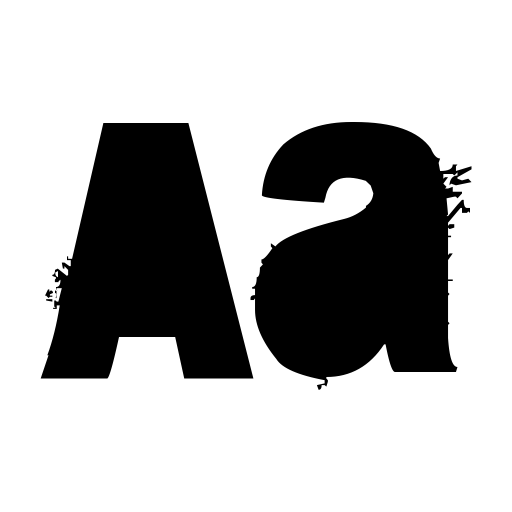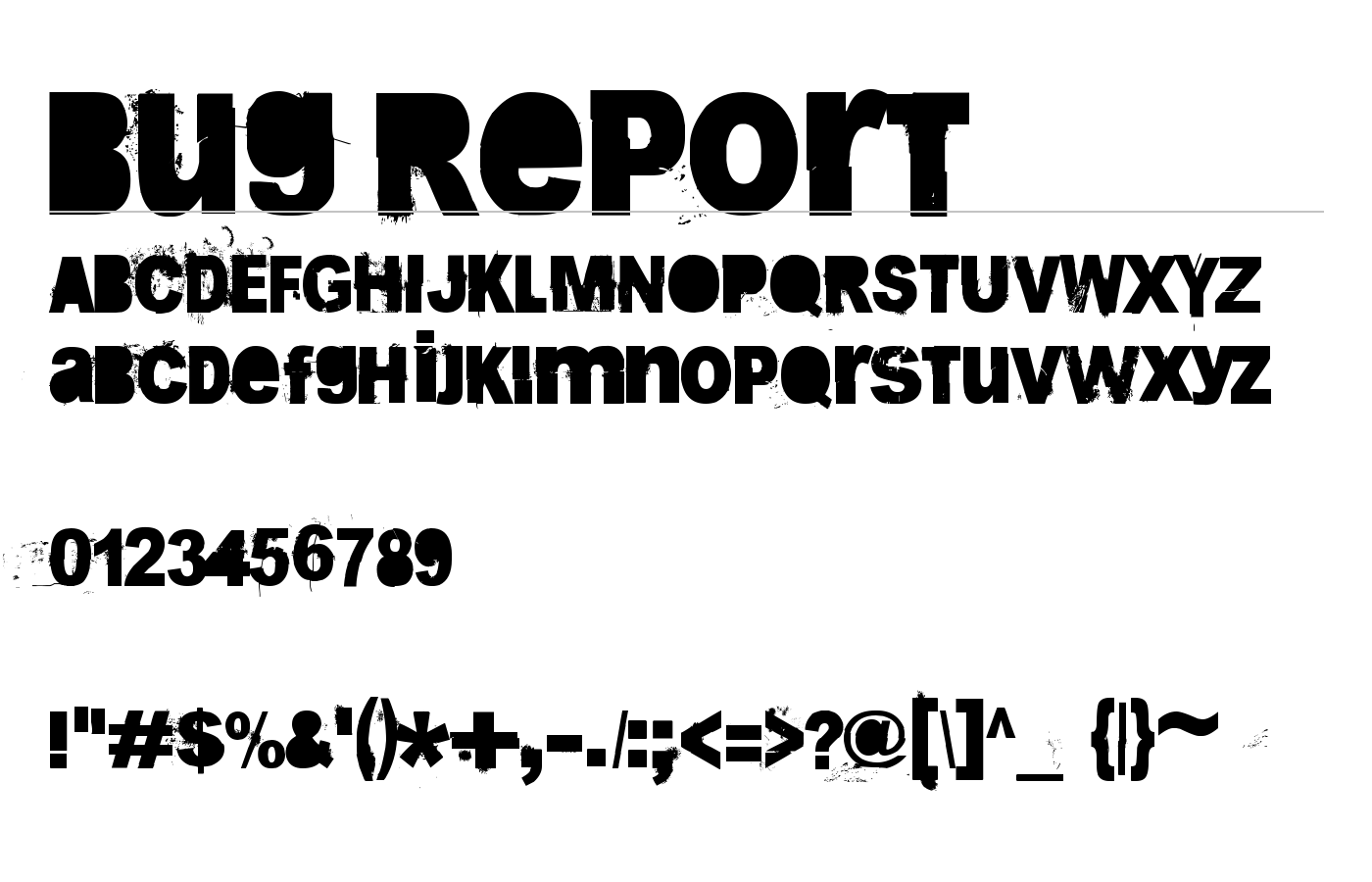
Bug Report Font is a bold, heavy sans serif with a rough, distressed texture giving it an edgy and urban feel. Its wide letterforms and strong presence are softened by worn, irregular patches that create a grungy, vintage vibe perfect for attention-grabbing headlines or creative projects. This font works best in designs that need a rebellious or rugged personality, such as posters, logos, and packaging with a streetwise or alternative style.
Bug Report Font